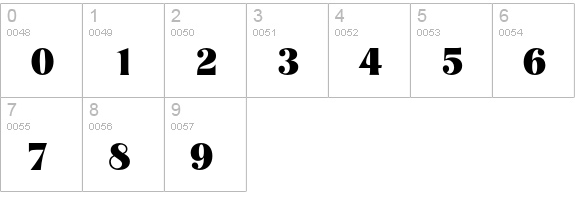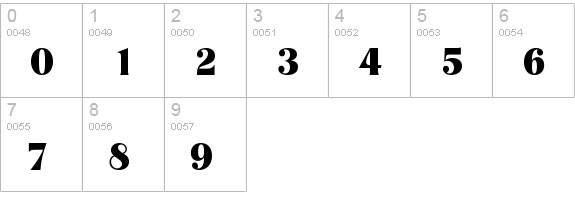
NashvilleEF-Bold is a strong, high-contrast variant in the NashvilleEF typeface family \xE2\x80\x94 well suited to headlines, attention-grabbing titles, and strong calls-to-action.
NashvilleEF-Bold font is a bold and striking typeface that exudes confidence and modernity. Its strong, clean lines make it perfect for headlines, titles, and branding materials that demand attention. The sharp angles and distinct letterforms give NashvilleEF-Bold a unique and contemporary look that will make your designs stand out. What's even better is that NashvilleEF-Bold is available for free download at FontsMarket.com. This means you can easily access this stylish font and use it in your projects without any cost. Whether you're designing a poster, logo, or website, NashvilleEF-Bold will add a touch of sophistication and professionalism to your work. Download it today and elevate your designs with this exceptional typeface.